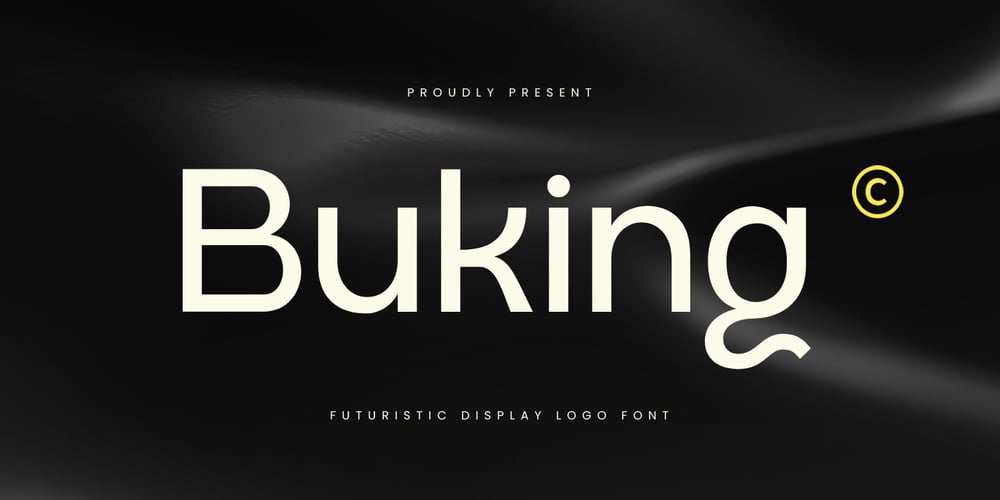
Buking Font Family was designed by Zamroni Hamzah and published by Sensatype Studio. Buking contains 2 styles and family package options. Introducing Buking, a font designed to make a statement. Combining modern aesthetics with bold, eye-catching design, Buking is perfect for creating logos and display texts that stand out from the crowd.The Story Behind Buking:Buking was born out of a desire to create a font that captures attention and leaves a lasting impression. Inspired by the clean lines and striking visuals of modern design, each character in Buking is meticulously crafted to ensure boldness and clarity. This font is perfect for designers looking to add a unique and contemporary touch to their projects.Buking Font Features: Bold Design: Striking and attention-grabbing, ideal for display and logo use. Modern Aesthetics: Clean lines and stylish curves that reflect contemporary design trends. Versatile Usage: Perfect for logos, posters, headlines, and graphic design projects. Multiple Formats: Available in 4 formats for all your design needs. High Impact: Clear and readable, ensuring your message stands out. Unique Character: Distinctive letterforms that add personality to your designs. Inspirational Previews: Includes sample designs to spark your creativity. Perfect For: Logo Design: Create bold and memorable logos for brands and businesses. Posters and Headlines: Design eye-catching posters and headlines that demand attention. Graphic Design: Add a unique and modern touch to your graphic design projects. Branding: Develop distinctive branding materials that stand out in the market. With Buking, your designs will capture attention and make a bold statement. Whether you’re creating logos, posters, or any other display text, Buking provides the perfect blend of modern design and unique style. Make your mark with Buking and let your creativity shine.